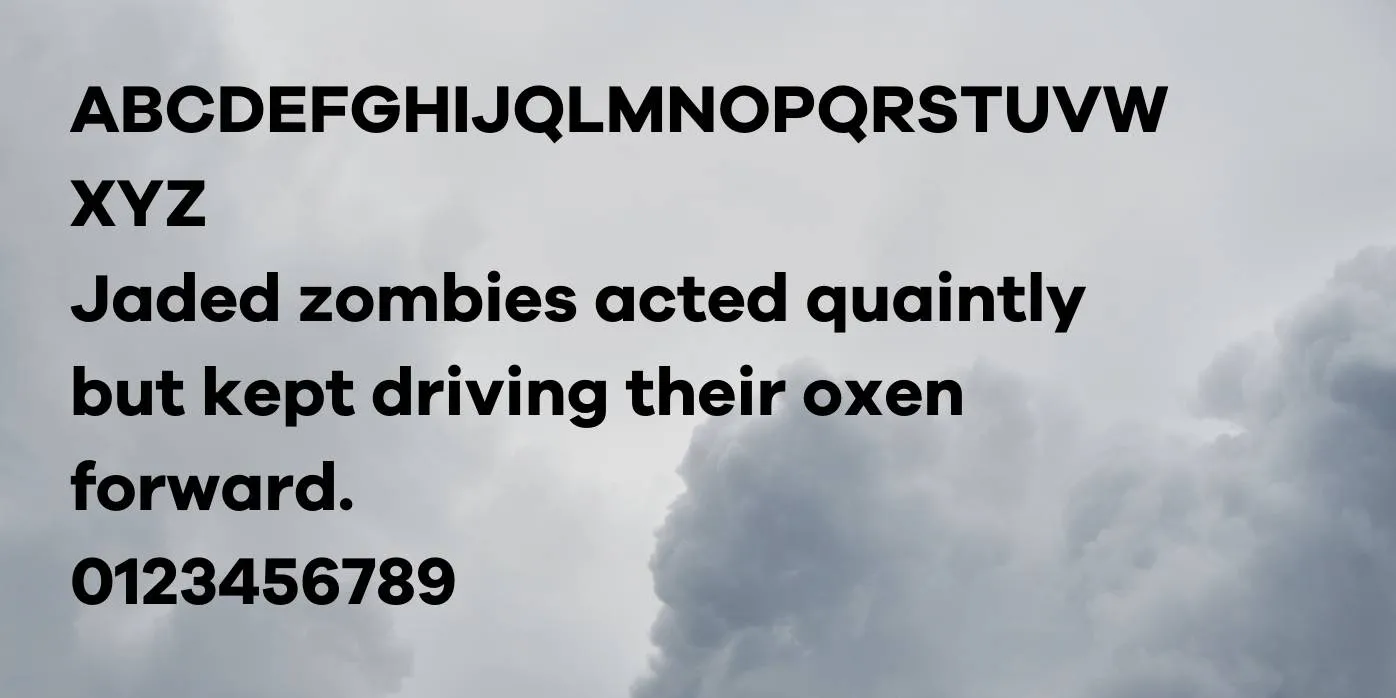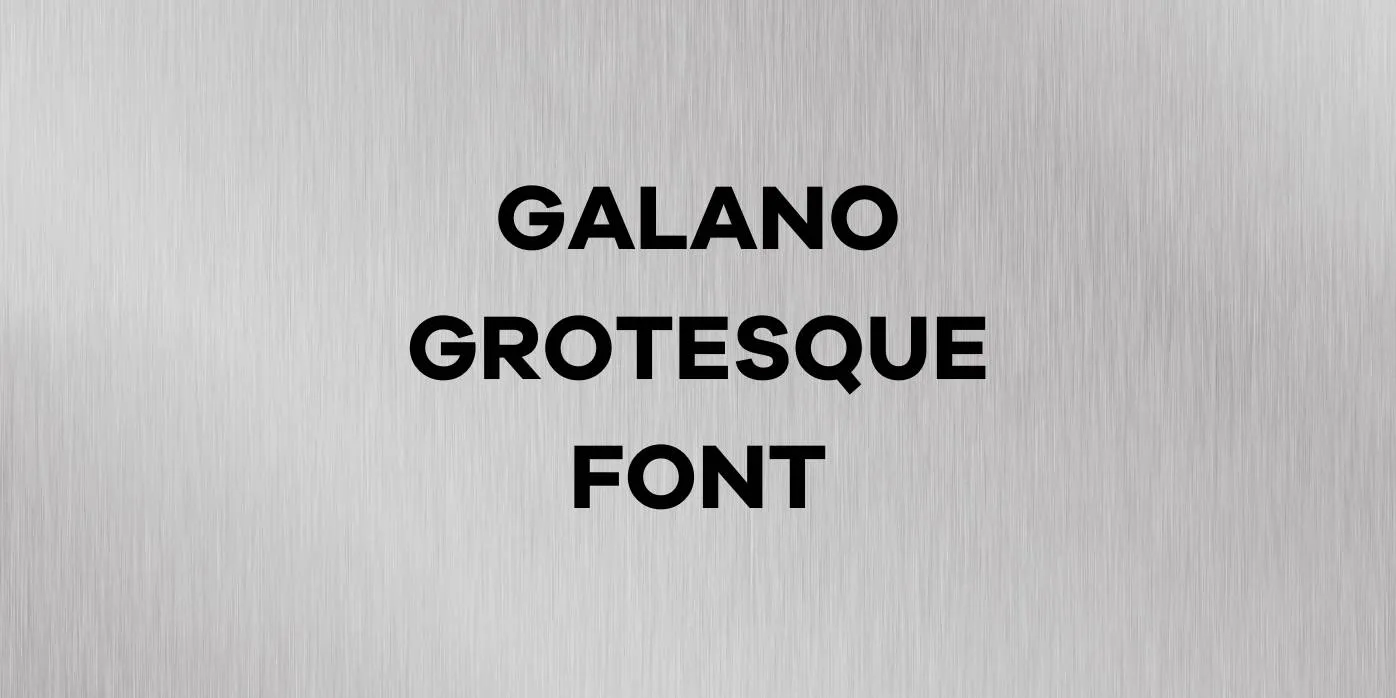
Galano Grotesque Font
Galano Grotesque Font is popular for its use inside Adobe. This typeface is similar to the classic font that is famous for its pairing function. The designer of this typeface is Rene Bieder and it belongs to a Sans Serif typeface family. This pretty cool typeface is free for commercial use.
It has an OpenType layout and postscript outlines that include Uppercase and Lowercase, Letters, Numbers and Numerals, and mandatory symbols. The font family has Bold Characters with 2 styles contains Bold and Alt Bold as well. This font moreover makes a brilliant preference for print designs. You could use this font in every roman or unusual design.
This typeface has a beautiful pairing nature with other sans serif typefaces like Brandon Grotesque Font.